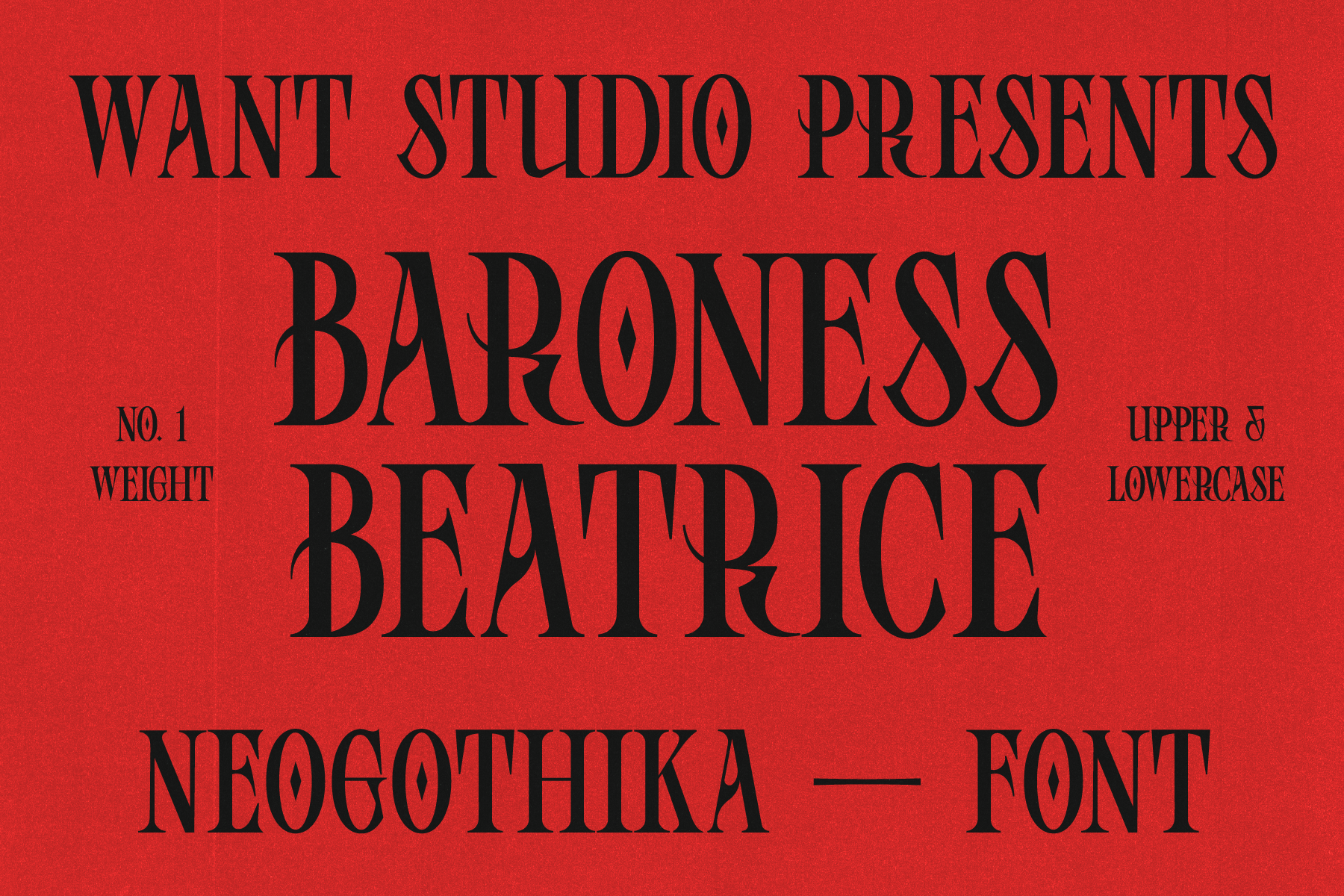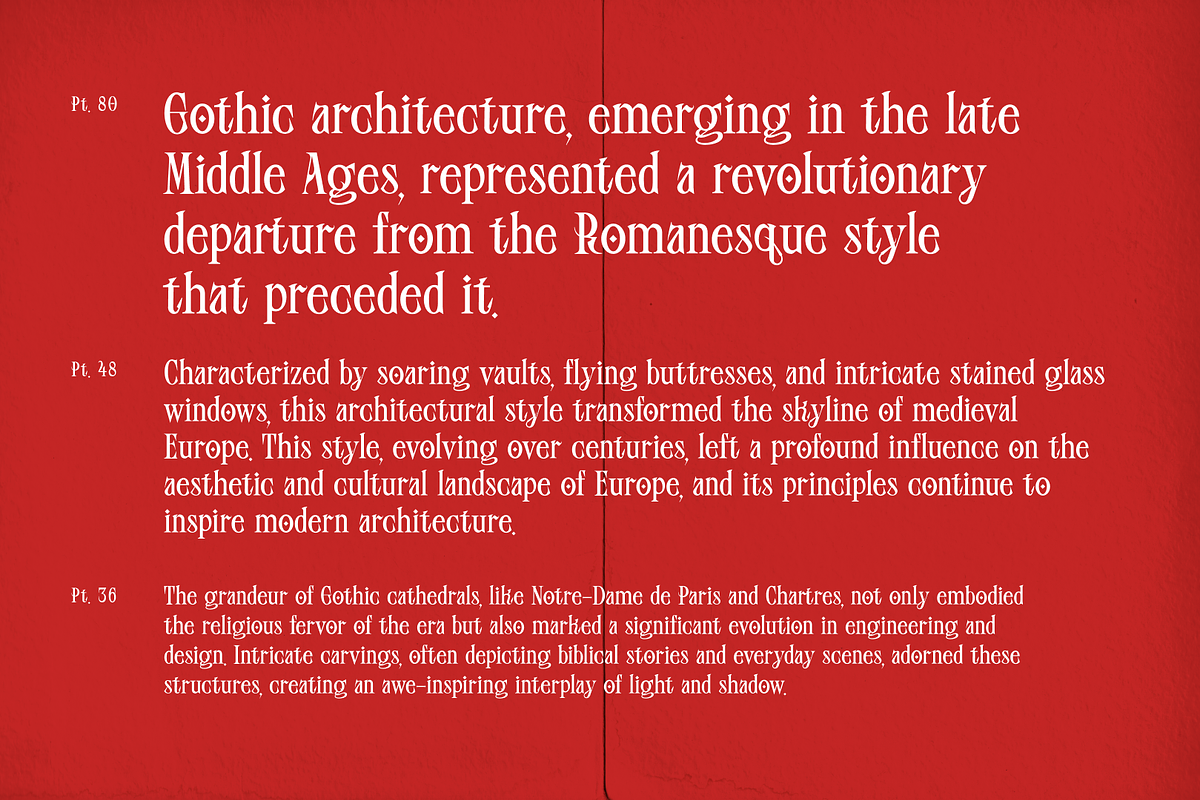
Baroness Beatrice Font
Introducing Baroness Beatrice, a font that melds contemporary elegance with the mystique of blackletter design. Free updates available!
This font is wonderful! Unfortunately, the 'V' is misaligned and appears off-center so I need to manually adjust for all my content. As far as I can tell, that's the only issue, butI love the style and character overall!